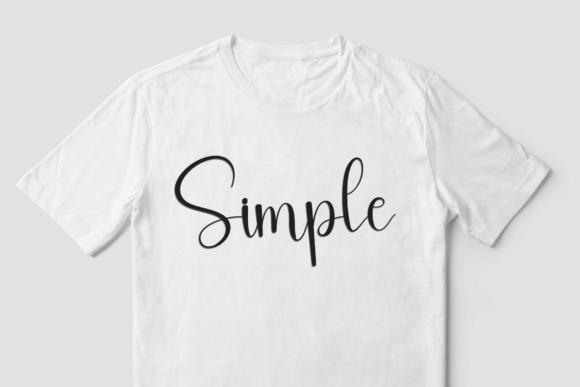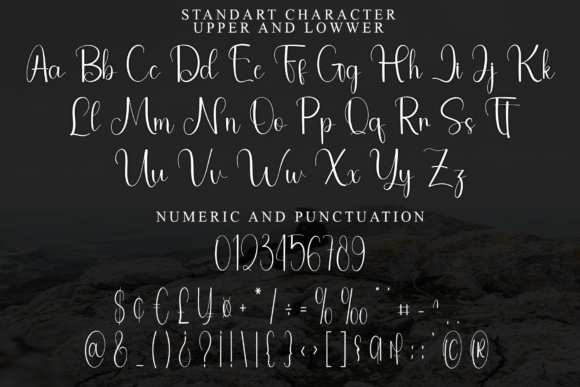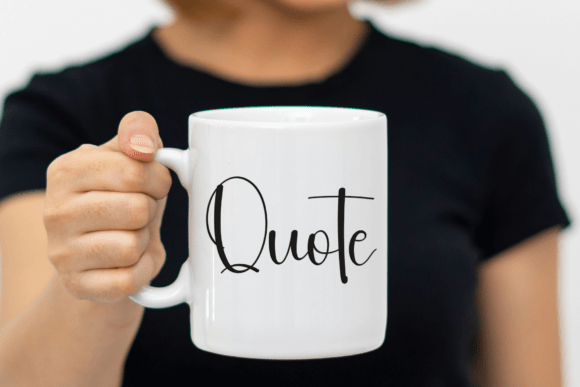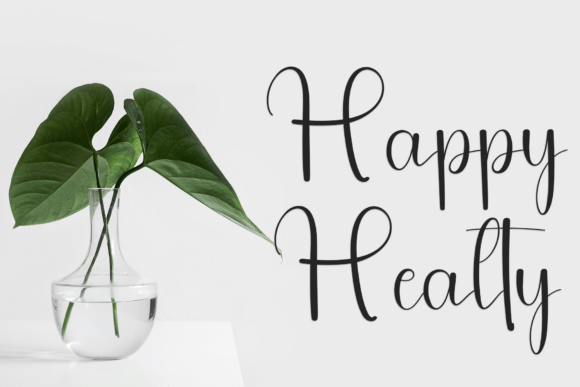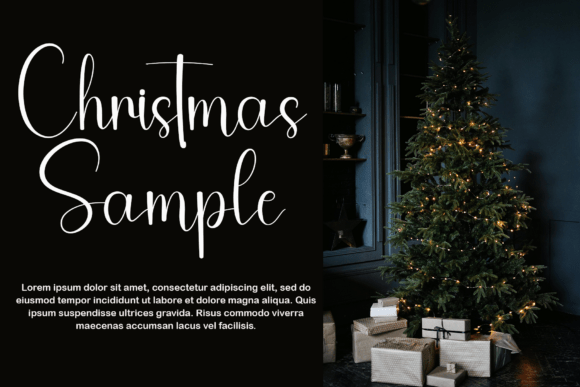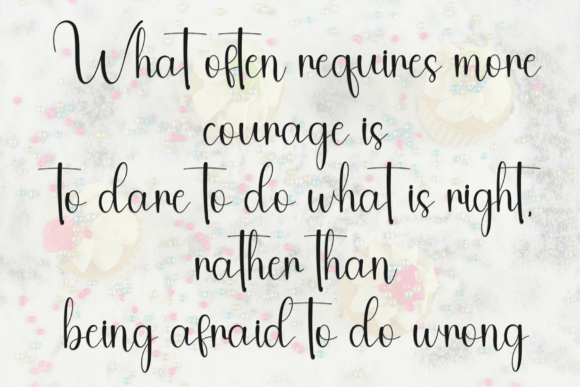
Genius Font: The Ultimate Casual and Creative Companion for Designers and Crafters
Are you tired of using the same old fonts for your personal projects, invitations, and social media graphics? Look no further than the Genius Font, a casual and creative typeface that exudes warmth and friendliness. With its round, playful strokes, this font creates a relaxed and approachable feel that’s perfect for designers and crafters who want to add a personal touch to their work.
The Charm of Genius Font
The Genius Font boasts a charming, hand-drawn aesthetic that’s sure to add a fun and unique touch to any design. Its playful strokes and rounded edges create a sense of approachability and warmth, making it perfect for projects that require a personal and friendly feel. Whether you’re designing an invitation, a social media graphic, or a personal project, the Genius Font is sure to make your work stand out.
Key Features of Genius Font
So, what makes the Genius Font so special? Here are just a few of its key features:
- Casual and creative design: The Genius Font has a unique, hand-drawn aesthetic that’s perfect for designers and crafters who want to add a personal touch to their work.
- Warm and friendly feel: The font’s round, playful strokes create a relaxed and approachable feel that’s perfect for personal projects, invitations, and social media graphics.
Use Cases for Genius Font
The Genius Font is versatile and can be used for a wide range of projects, including:
- Personal projects: Whether you’re designing a personal blog, a portfolio, or a craft project, the Genius Font is perfect for adding a personal touch.
- Invitations: The font’s playful and friendly feel makes it perfect for invitations, including birthday parties, baby showers, and weddings.
- Social media graphics: The Genius Font is great for social media graphics, including Facebook posts, Instagram stories, and Twitter headers.
Why Choose Genius Font?
So, why choose the Genius Font over other fonts? Here are just a few reasons:
- Unique and creative design: The Genius Font has a unique and creative design that’s sure to make your work stand out.
- Easy to read: The font is easy to read, even at small sizes, making it perfect for a wide range of projects.
In conclusion, the Genius Font is a casual and creative typeface that’s perfect for designers and crafters who want to add a personal touch to their work. With its charming, hand-drawn aesthetic and playful strokes, this font is sure to make your work stand out. Whether you’re designing a personal project, an invitation, or a social media graphic, the Genius Font is a great choice. So, why not give it a try and see the difference it can make in your designs?